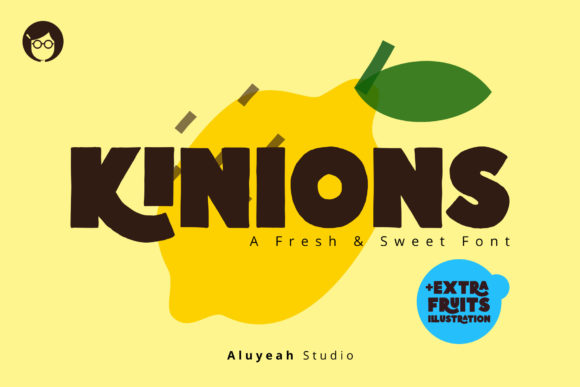
Presenting the AL Kinions Font, a typographic masterpiece crafted to ignite your creativity and transform your designs into captivating expressions. Its amiable personality dances across any project, exuding a cheerful aura that instantly uplifts and enchants.
This display font, hailing from the brilliant mind of TheSundoro, epitomizes the playful spirit of summer gatherings and jubilant occasions. Picture this: a vibrant poster for a kids' party, adorned with the AL Kinions Font. Its friendly curves and playful strokes breathe life into every letter, enticing curiosity and excitement. The font's innate charm ensures that your message stands out, promising an unforgettable experience for your guests.
Beyond its festive appeal, the AL Kinions Font is a versatile workhorse, ready to tackle a myriad of creative endeavors. Its warm and inviting nature makes it a natural choice for packaging and branding, capturing the essence of your brand with a touch of whimsy and approachability. Whether you're crafting summer party greetings or designing kids' projects, the AL Kinions Font infuses your creations with a sense of joy and merriment.
Explore the boundless potential of AL Kinions Font and unleash your imagination. Dive into a world where typography dances with delight, where every project is an opportunity to create something extraordinary. Embrace the magic of AL Kinions Font and watch as your designs transform into vibrant expressions of your artistic vision.